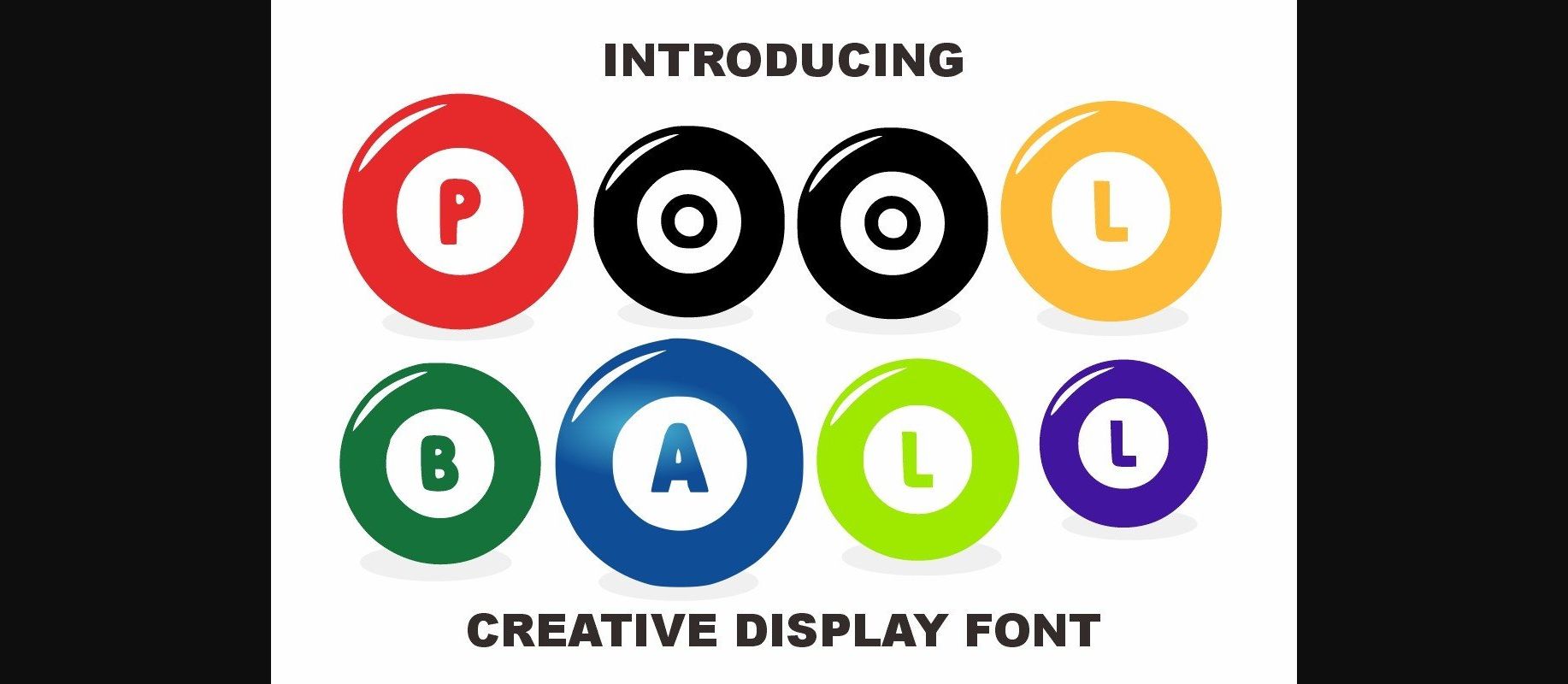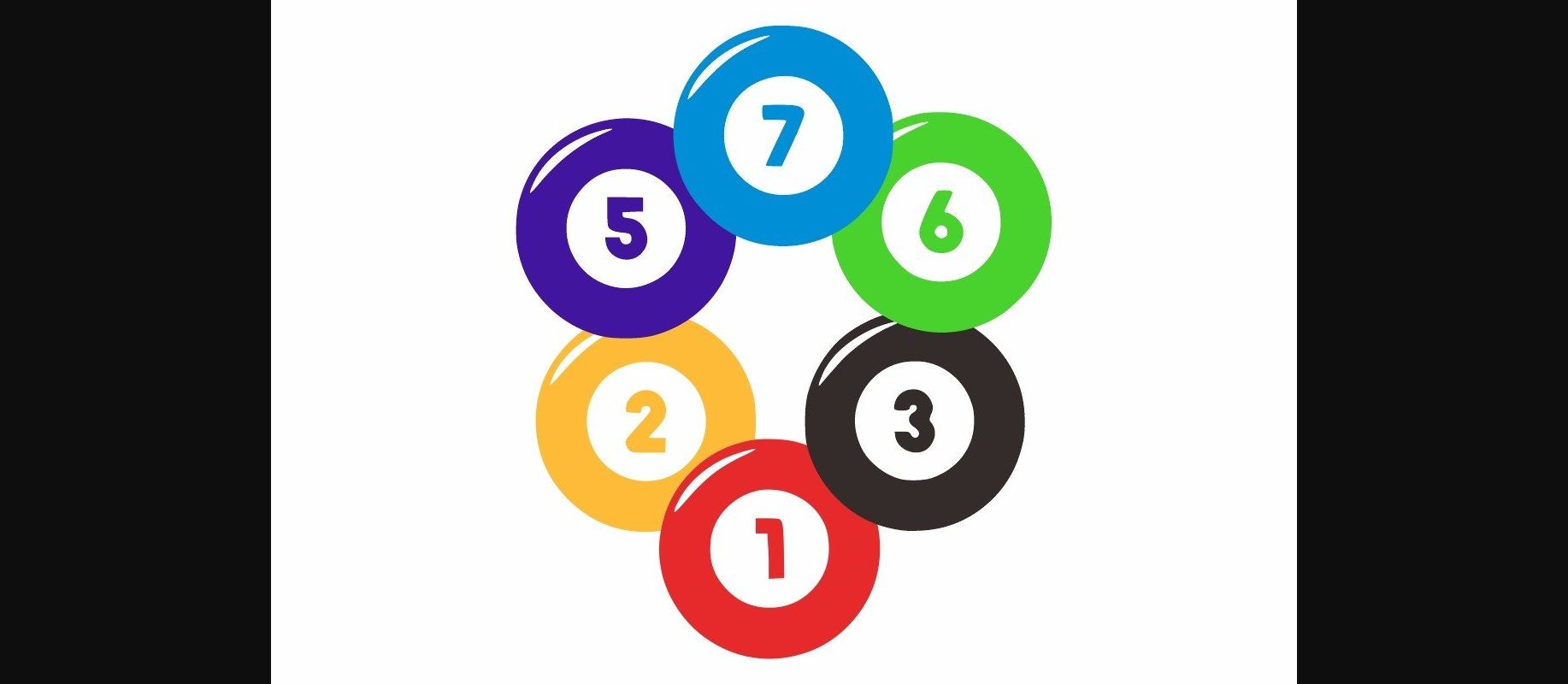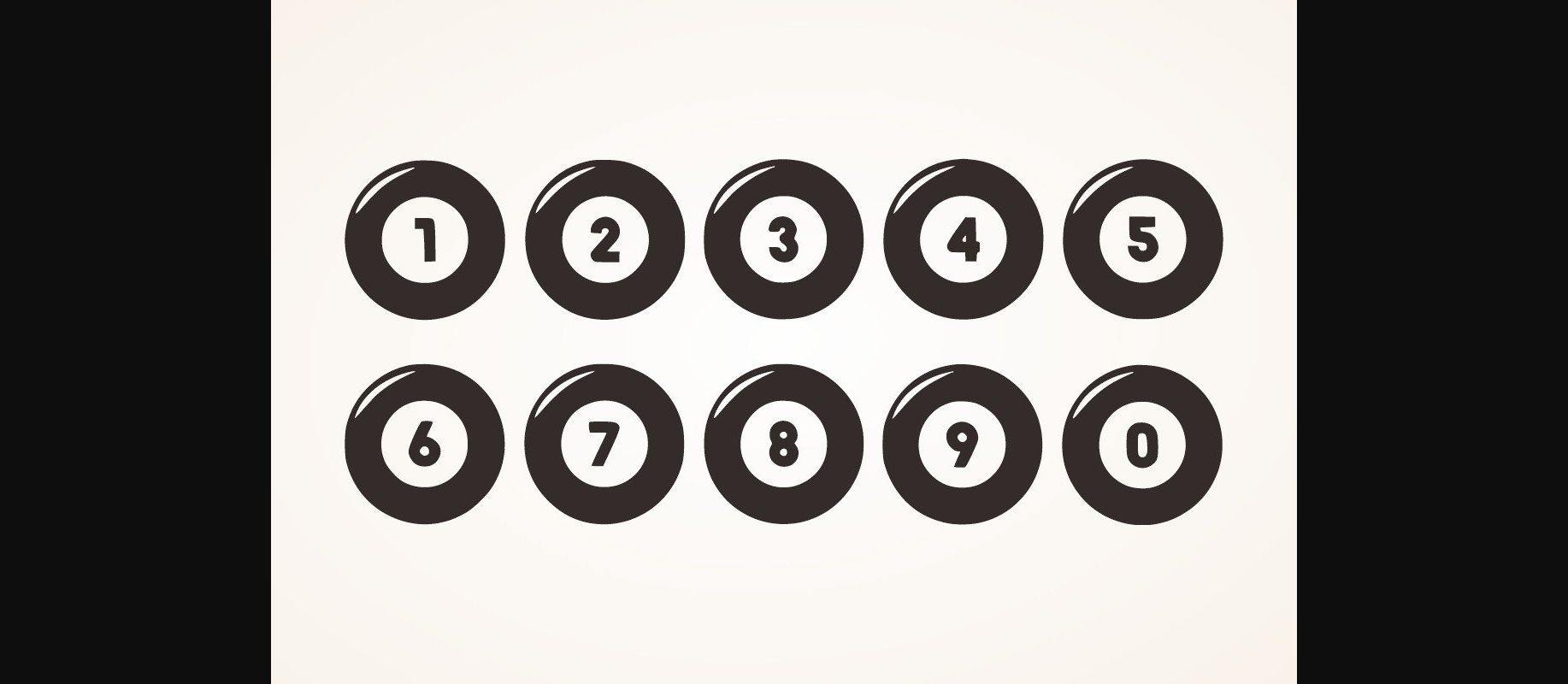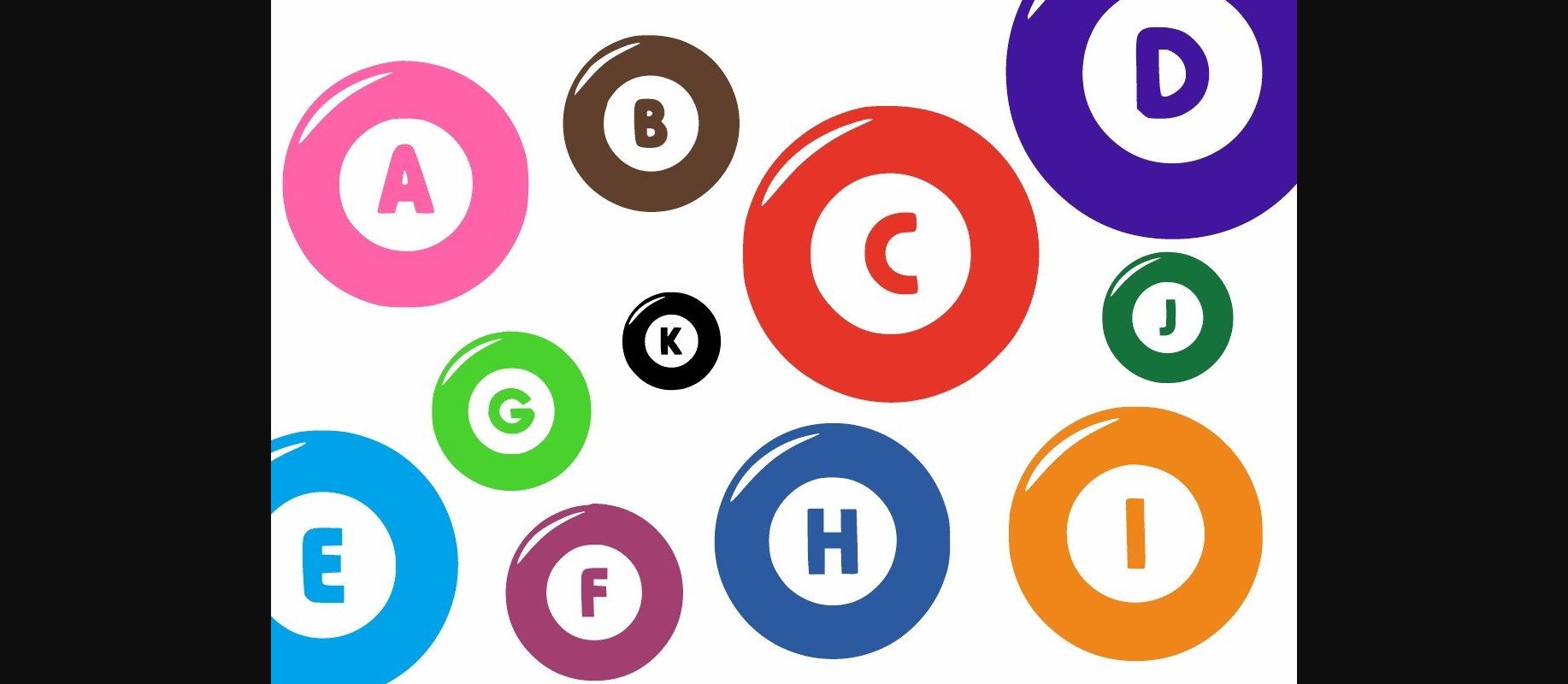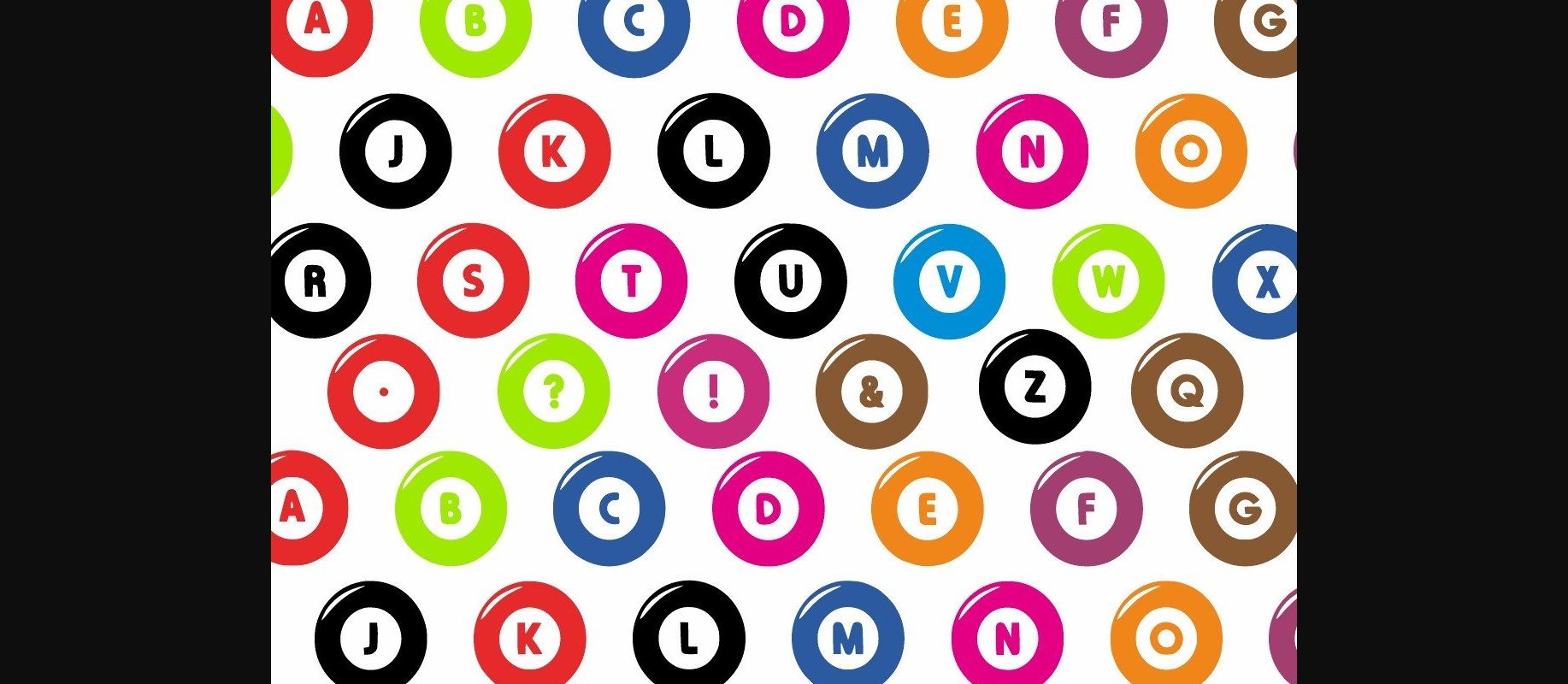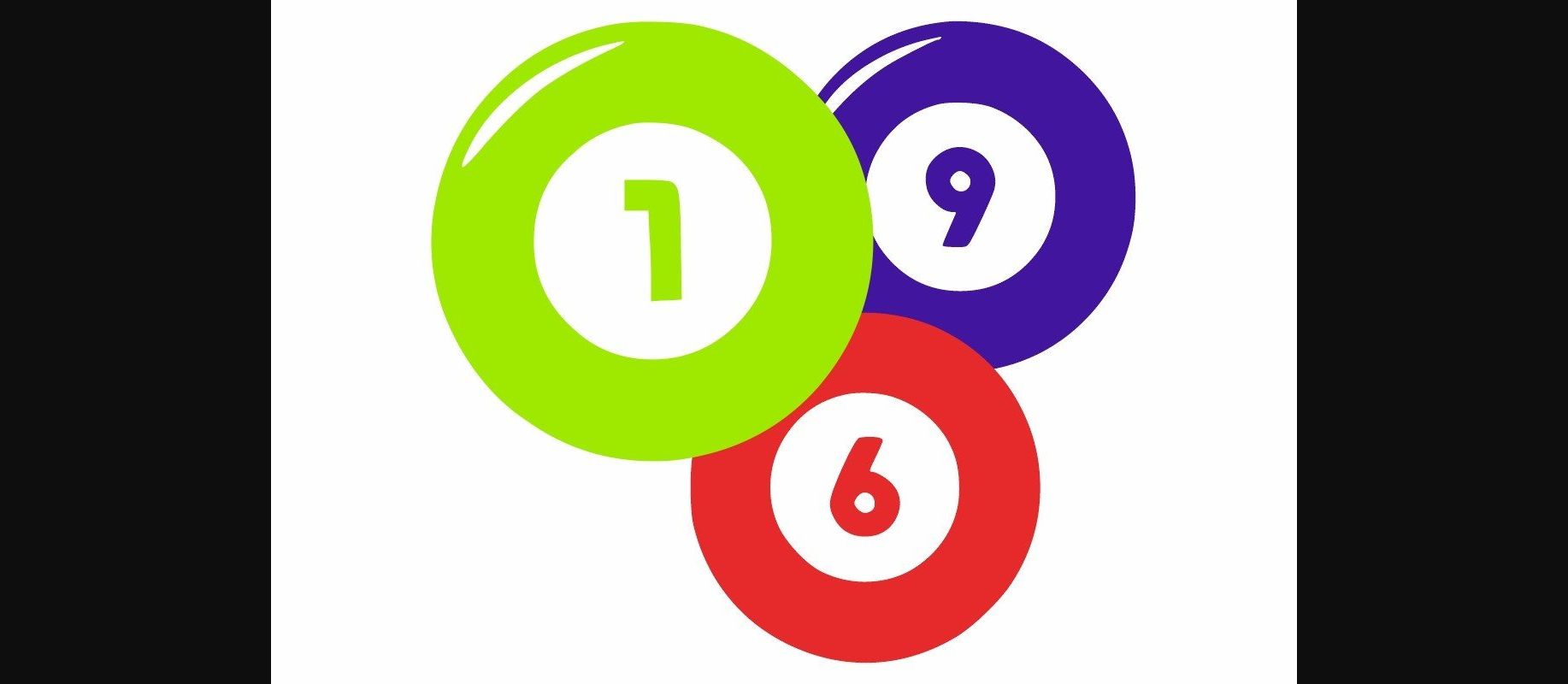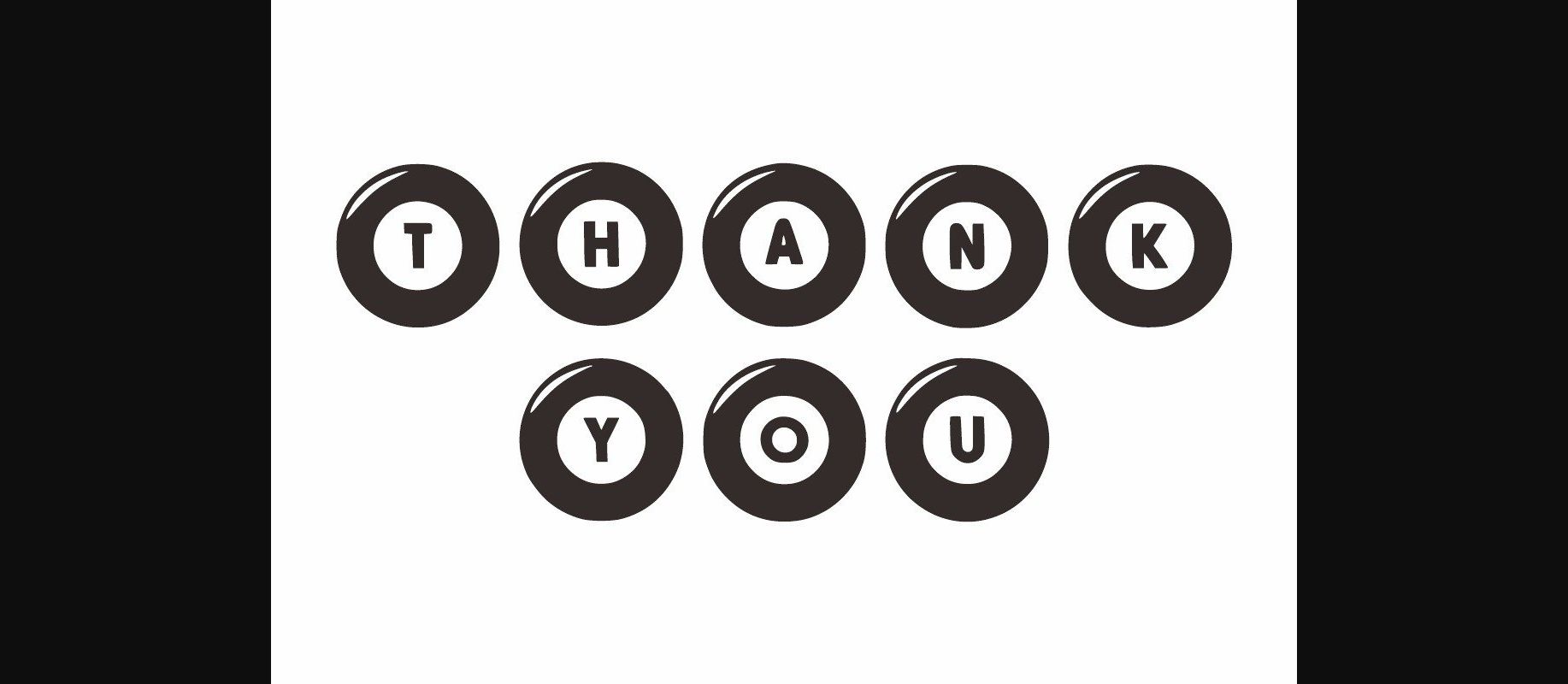
Pool Ball Font
About Pool Ball Font
Pool Ball is a round and fun decorative font. Add it to each of your promotions, price tag, logos, party invitations, or pretty much any design that requires a touch of youth and joy.